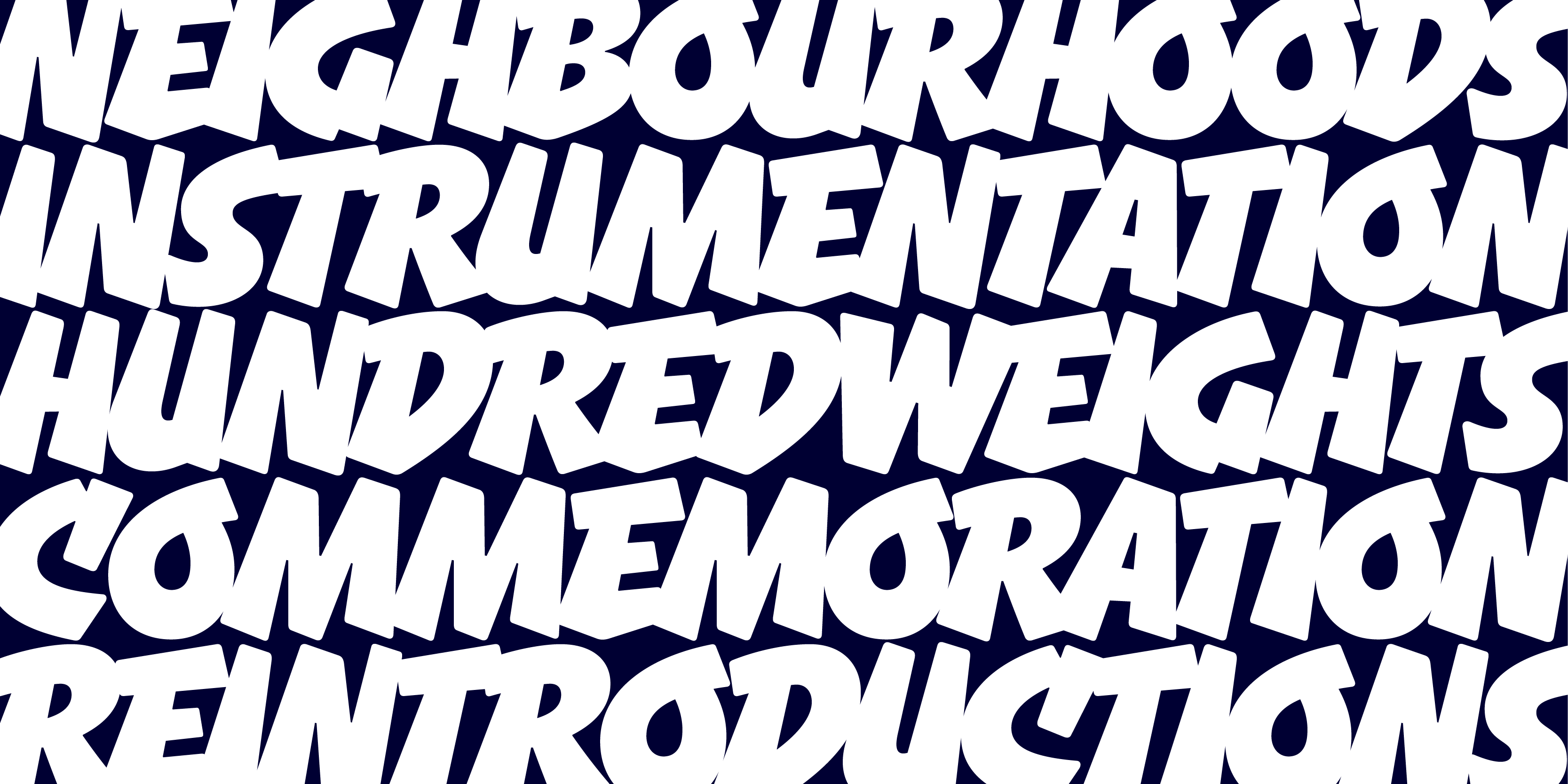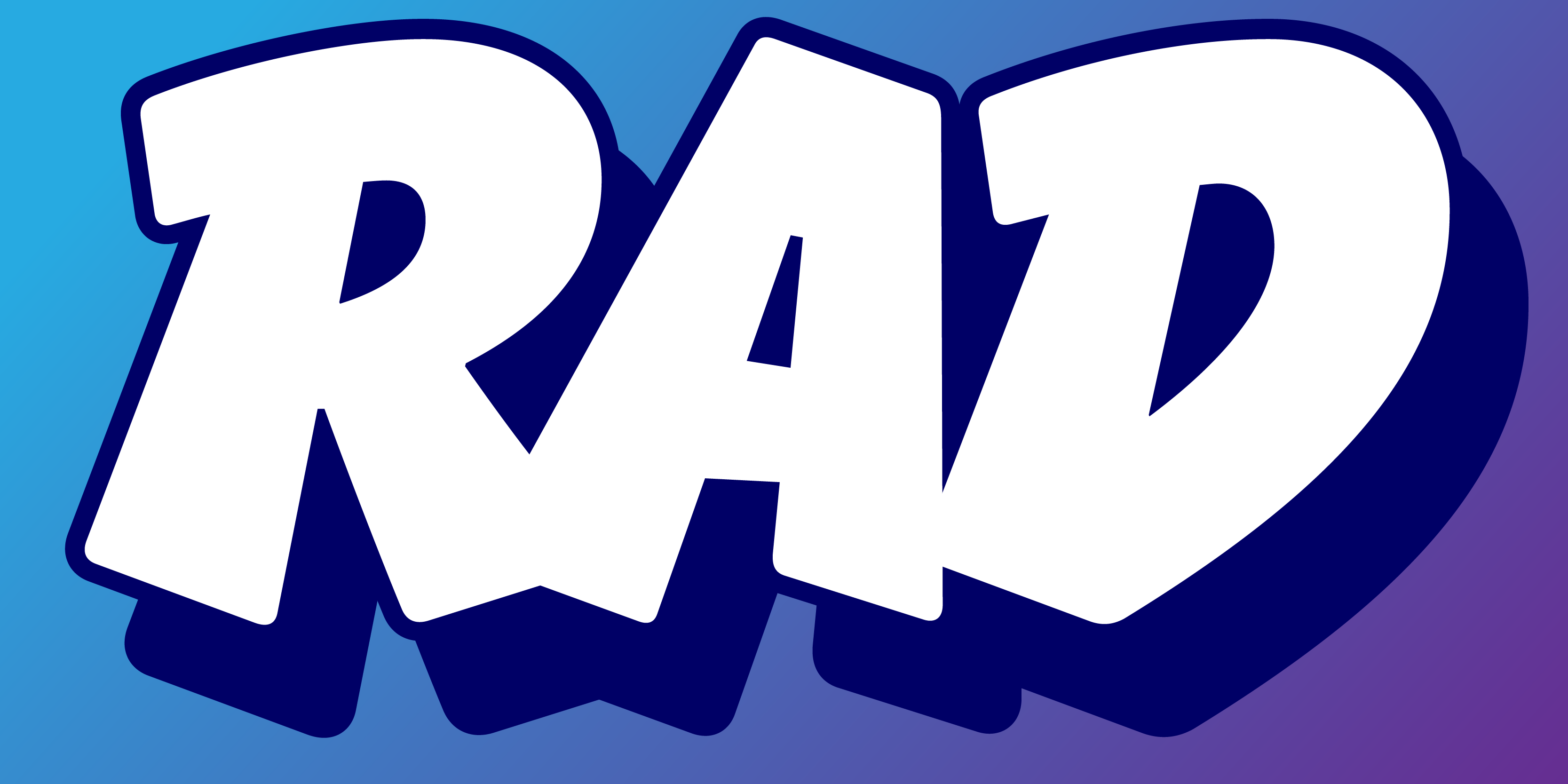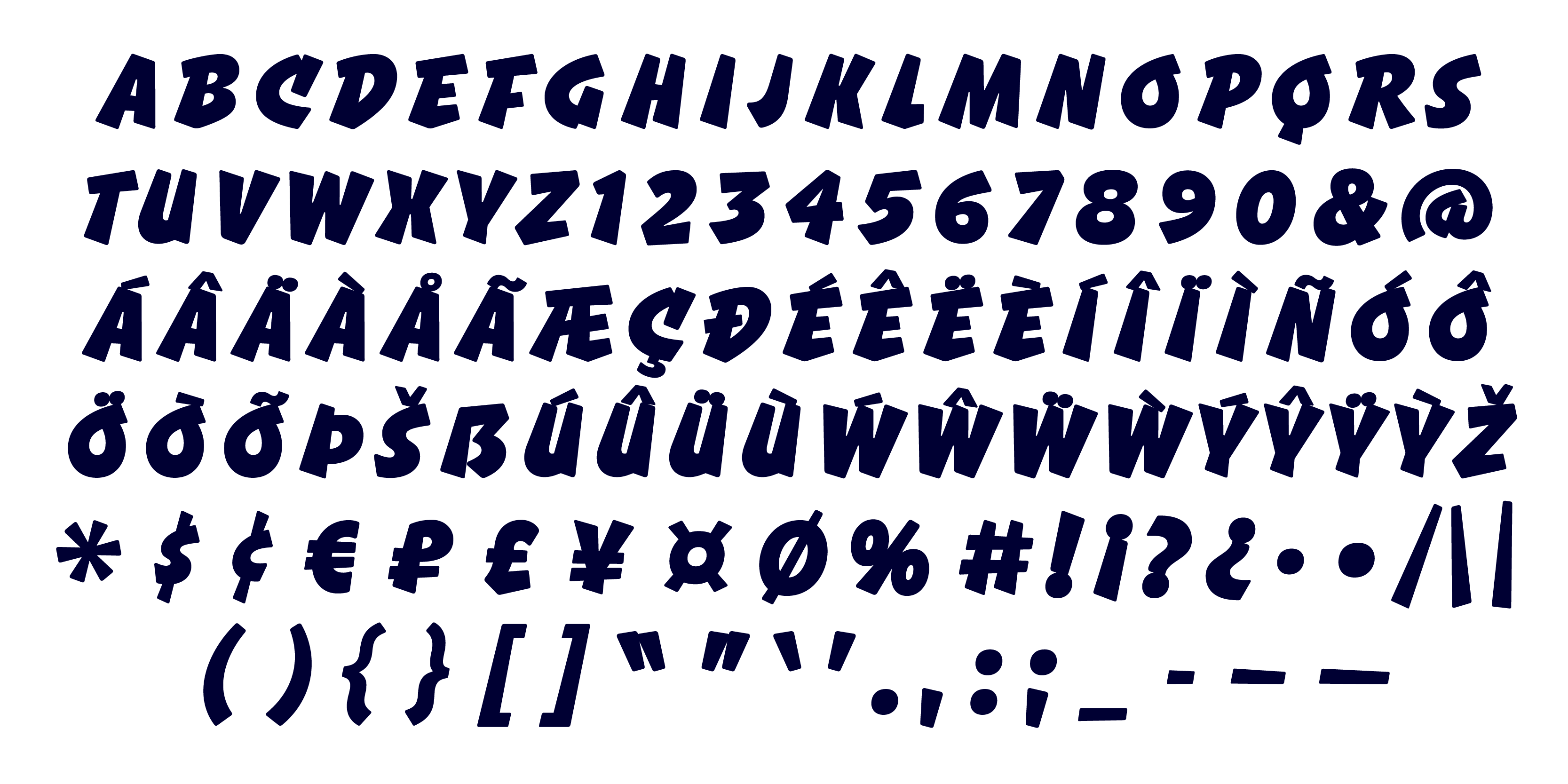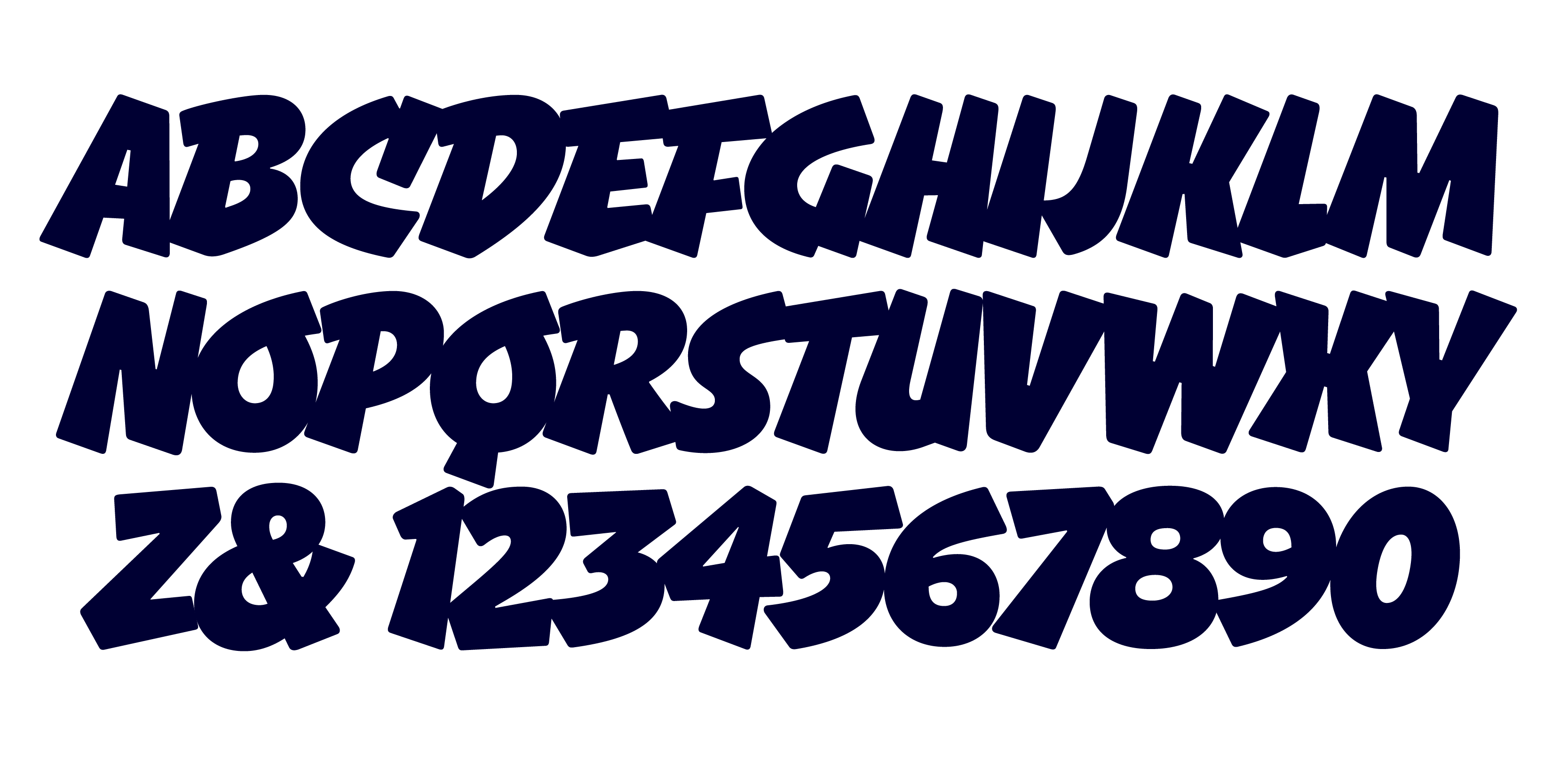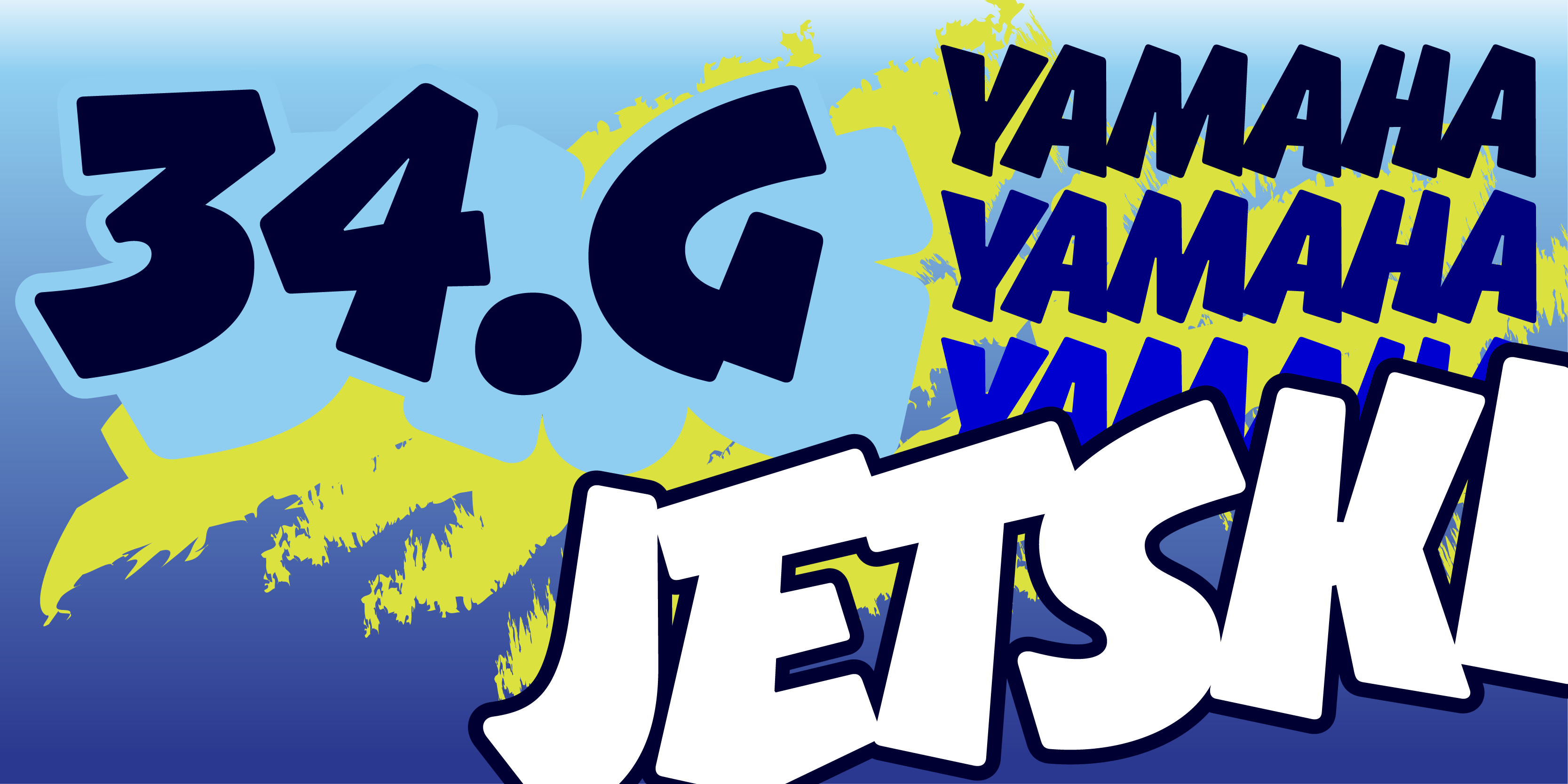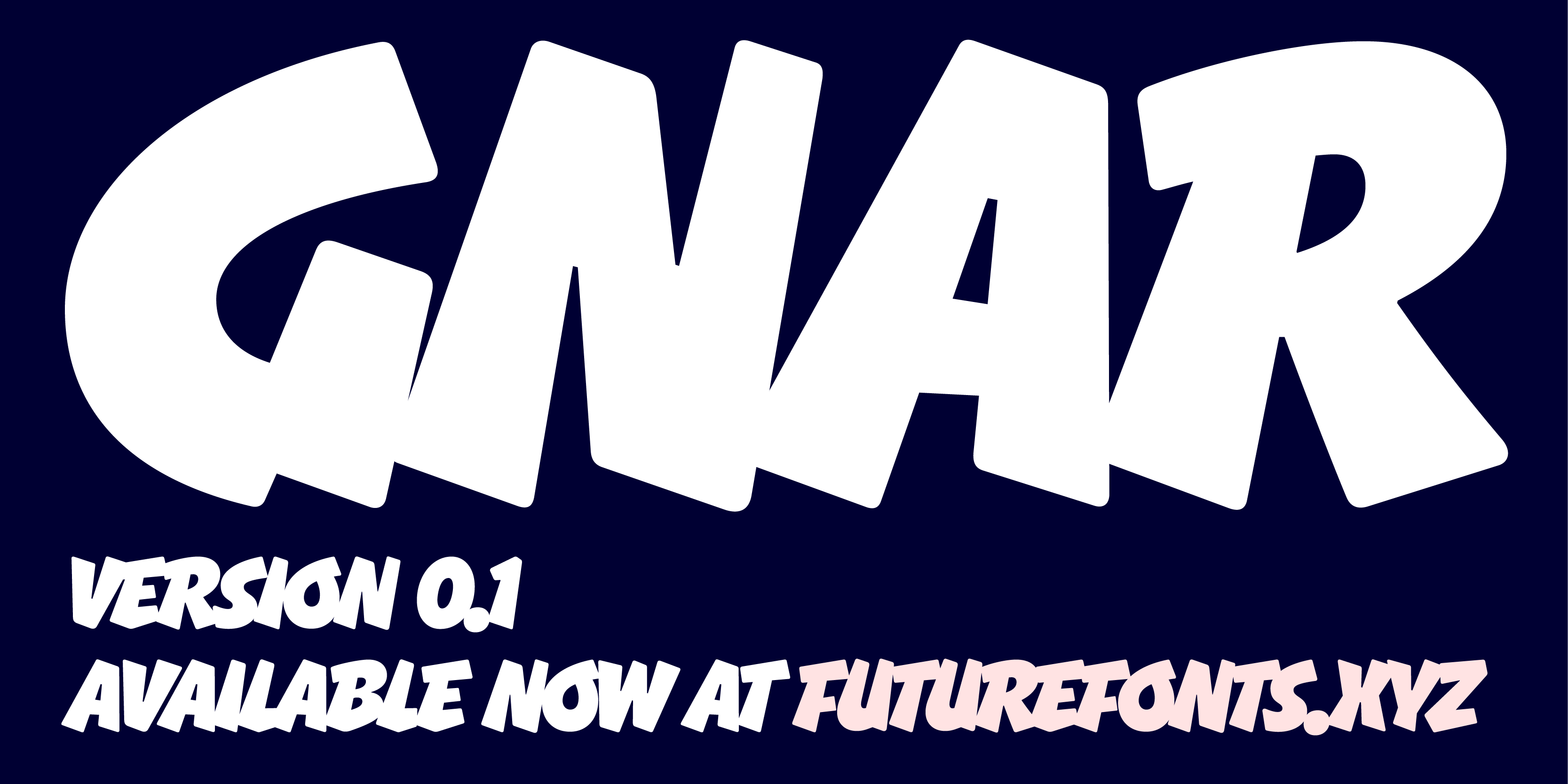
Gnar is a bold and bottom-heavy display typeface. Its forms are influenced by the casual caps of American sign painters, but Gnar gets its feeling from 1990s loud sports graphics. It experiments with intentional overlapping letters to maximize impact, including playing with accents that connect to letters. Try this heavy headliner for your next action/adventure movie poster, or monster truck graphic.